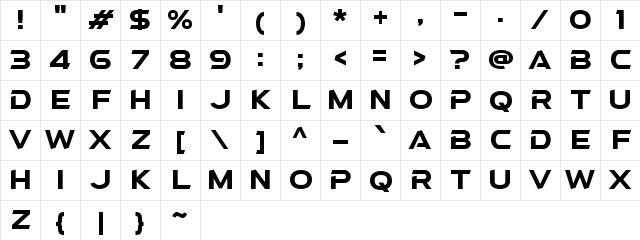
a Atmospheric Regular Free Font
a Atmospheric Regular
Designer: Wahyu Eka Prasetya
Design Context for a Atmospheric
a Atmospheric is a composed and adaptable typeface that performs quietly and consistently across a wide range of design contexts.